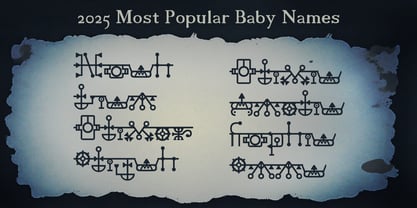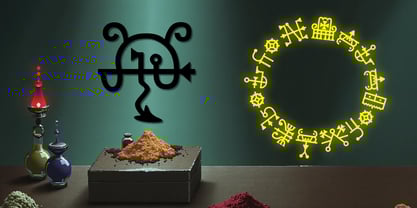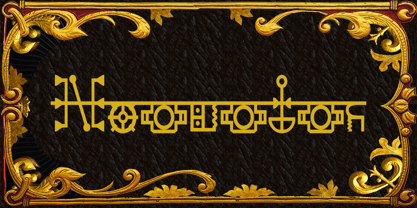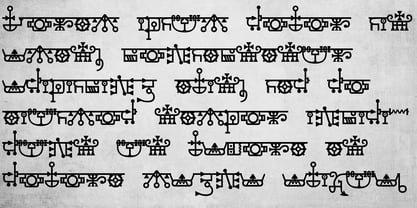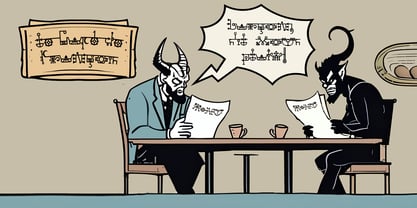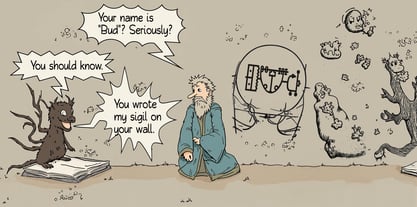
The Neobolos Font Family was designed by Gregory Stevens and published by Second Circle Font Foundry. Neobolos contains 1 styles. More about this family
Neobolos is a decorative typeface inspired by the demonic sigils found in magical and demonological texts such as the Ars Goetia and Grimorium Verum.
NO ACTUAL SIGILS ARE USED AS CHARACTERS IN THIS FONT.
Neobolos characters are composed of geometric arrangements of lines, dots, and circles mixed with shapes that are thought to have magic powers, giving them a look, feel, and overall aesthetic reminiscent of ancient sigils used in magical practice. Characters are connected at the midline, so each word creates the impression of being a single complex mystical seal. The font is designed to be stylized but recognizable, and readable with a little practice.
Neobolos is perfect for accessories and illustrations that involve the use of magic, spells, and incantations. It is especially well-designed for RPG events and campaigns where you want people to be able to figure out what the words are saying… but you don’t want to make it too easy for them!